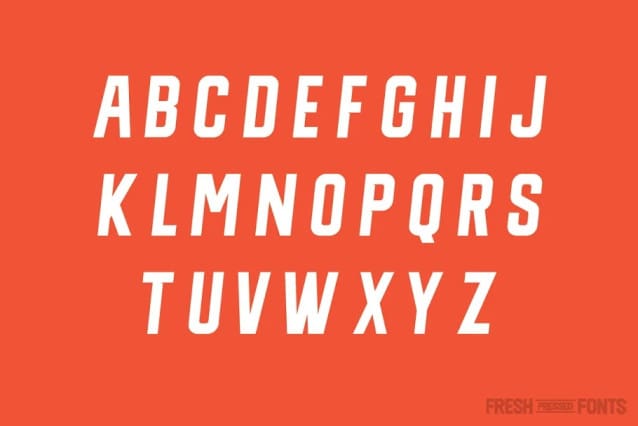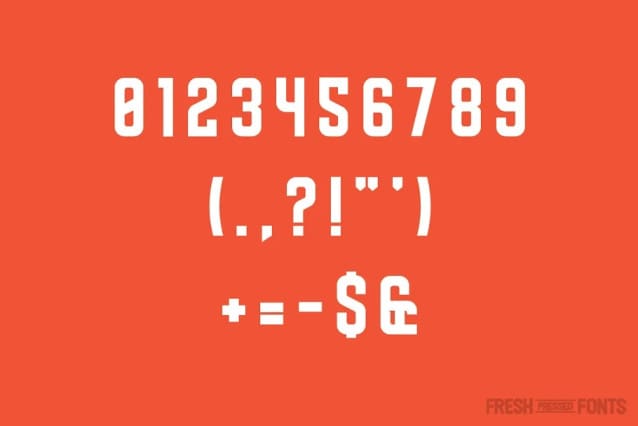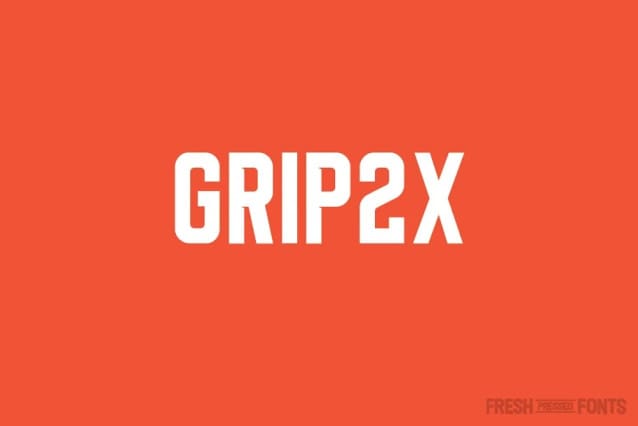
Grip2X Font
Grip2X Font is a sharp and sporty serif display typeface. It’s strong appearance will be useful when creating commanding titles and headlines that demand attention. Grip2X is a slightly condensed face, but has the thickness to provide all the stability you need.
Grip2X comes in a Regular and Oblique style, with 26 standard characters, numbers 0-9, and several essential glyphs.